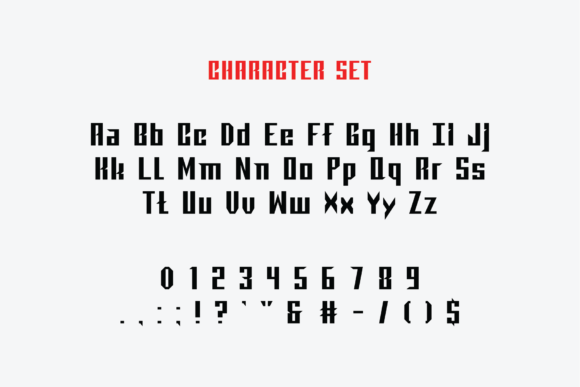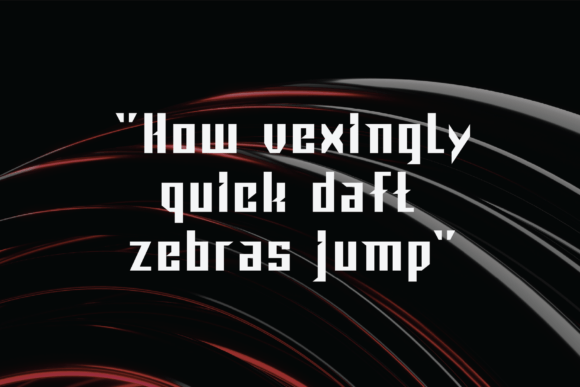
Introducing Hardline Font: The Ultimate Futuristic Condensed Display Font
Are you tired of using the same old fonts for your designs? Look no further! Hardline Font is a game-changing, futuristic condensed font that is sure to take your designs to the next level. With its bold, clean lines and edgy, modern yet sporty appearance, Hardline Font is perfect for designers and crafters looking to create stunning visuals.
What is Hardline Font?
Hardline Font is a futuristic condensed display font that features bold, clean lines with an edgy, modern yet sporty appearance. This font is designed to make a statement, with its sleek and condensed letterforms that are sure to grab attention. Whether you’re looking to create a bold logo, a striking poster, or a stylish social media post, Hardline Font is the perfect choice.
Key Features of Hardline Font
- Bold and Clean Lines: Hardline Font features bold, clean lines that give it a modern and sleek appearance.
- Edgy and Sporty: The font has an edgy, sporty vibe that makes it perfect for designs that require a bit of attitude.
- Condensed Letterforms: The condensed letterforms of Hardline Font make it perfect for designs where space is limited.
- Versatile: Hardline Font can be used for a wide range of designs, from branding and logo design to t-shirt design, poster design, and social media posts.
Use Cases for Hardline Font
Hardline Font is a versatile font that can be used for a wide range of designs. Here are some use cases where Hardline Font shines:
- Branding: Use Hardline Font to create a bold and memorable brand identity.
- Logo Design: Create a striking logo that grabs attention with Hardline Font.
- T-Shirt Design: Use Hardline Font to create stylish and edgy t-shirt designs.
- Poster Design: Create eye-catching posters with Hardline Font that are sure to grab attention.
- Social Media Posts: Use Hardline Font to create stylish and engaging social media posts.
Why Choose Hardline Font?
So why choose Hardline Font over other fonts? Here are some reasons why Hardline Font stands out:
- Unique and Modern: Hardline Font has a unique and modern appearance that sets it apart from other fonts.
- Highly Versatile: Hardline Font can be used for a wide range of designs, making it a great addition to any designer’s font library.
- Easy to Read: Despite its bold and condensed letterforms, Hardline Font is easy to read, making it perfect for designs where legibility is important.
Tips for Using Hardline Font
Here are some tips for using Hardline Font effectively:
- Use it Boldly: Hardline Font is designed to be used boldly, so don’t be afraid to experiment with different font sizes and weights.
- Pair it with Other Fonts: Hardline Font pairs well with other fonts, so try pairing it with a sans-serif font for a stylish contrast.
- Experiment with Colors: Hardline Font looks great in a variety of colors, so experiment with different colors to find the one that works best for your design.
In conclusion, Hardline Font is a game-changing, futuristic condensed font that is perfect for designers and crafters looking to create stunning visuals. With its bold, clean lines and edgy, modern yet sporty appearance, Hardline Font is sure to take your designs to the next level. Whether you’re looking to create a bold logo, a striking poster, or a stylish social media post, Hardline Font is the perfect choice.